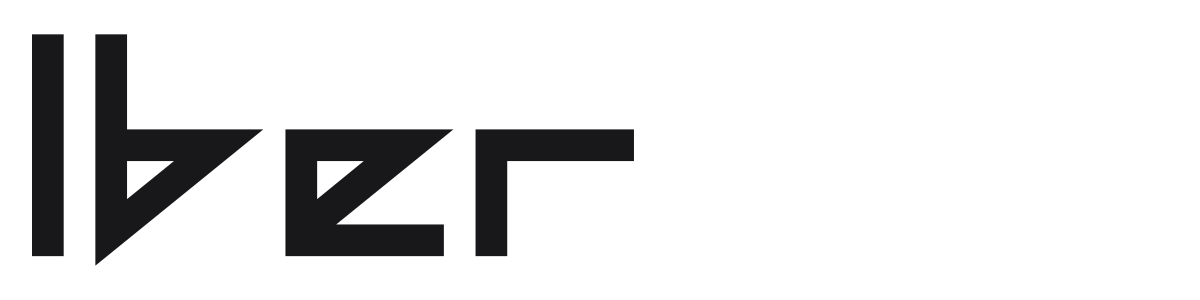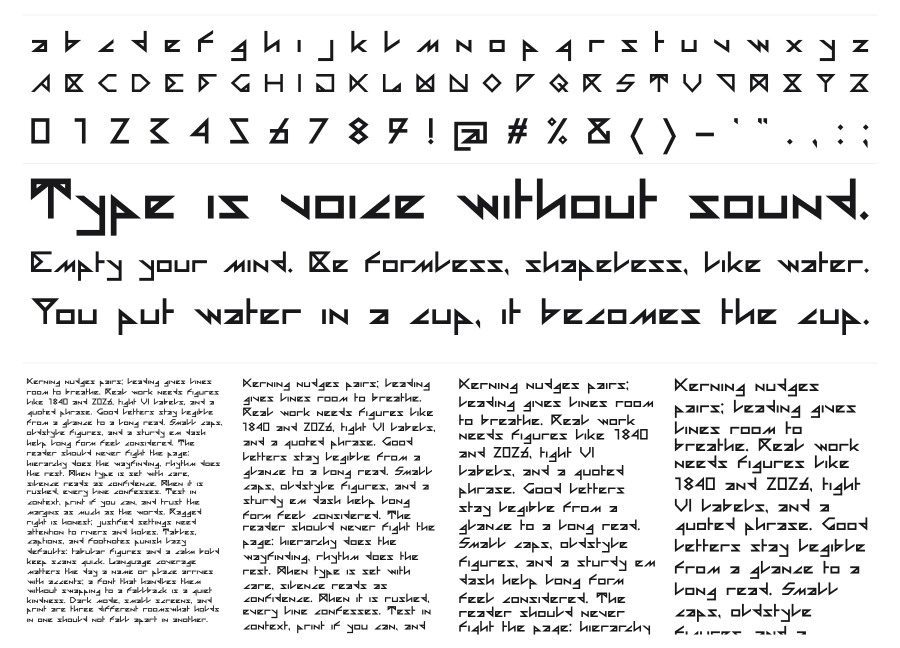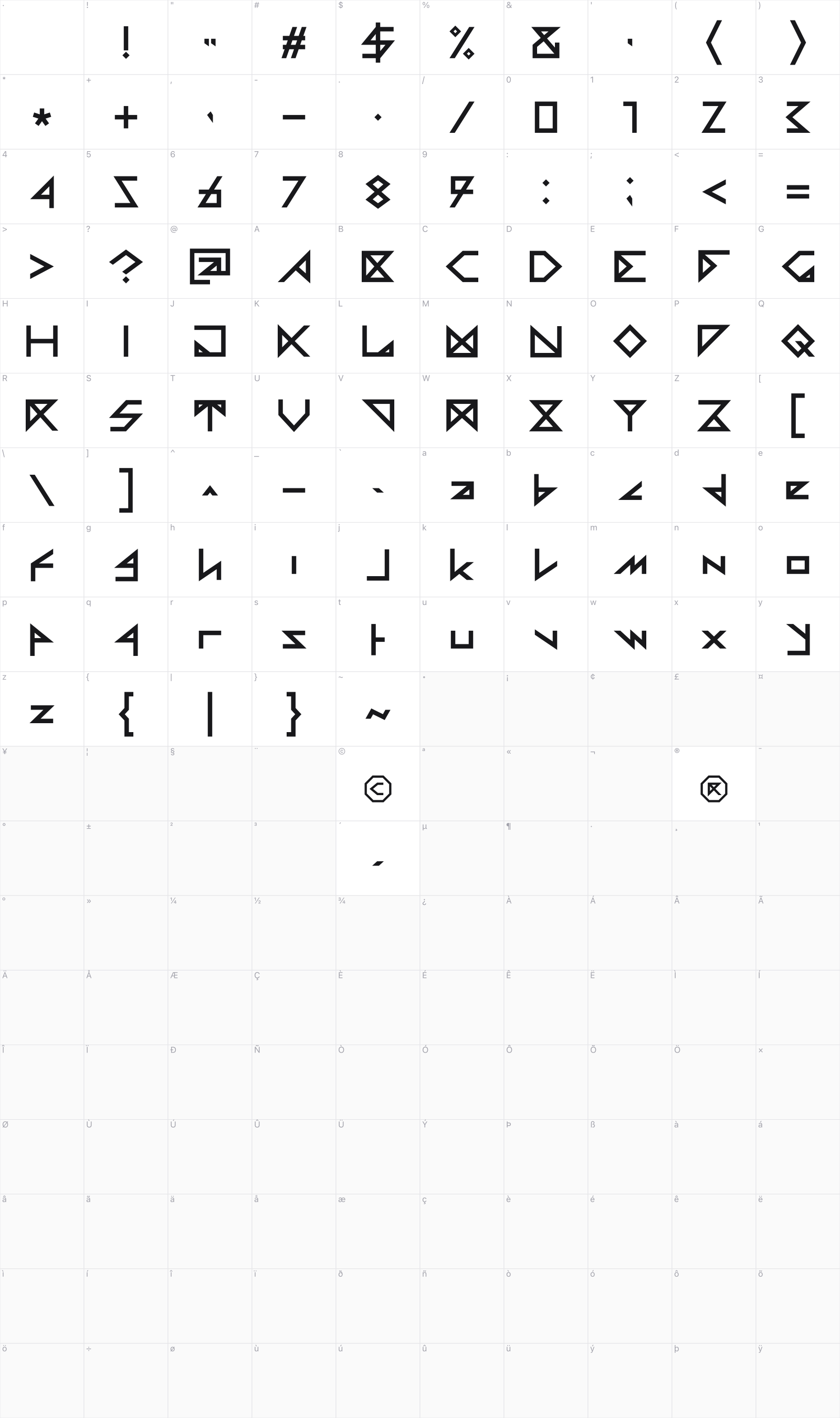
Iber
Iber is a bold geometric display font defined by sharp angular cuts and hard-edged construction. Every stroke terminal is cropped diagonally, giving the letters an industrial, almost technical tension that stands out in logo work, decals, and apparel graphics. It carries real visual weight without relying on conventional curves.